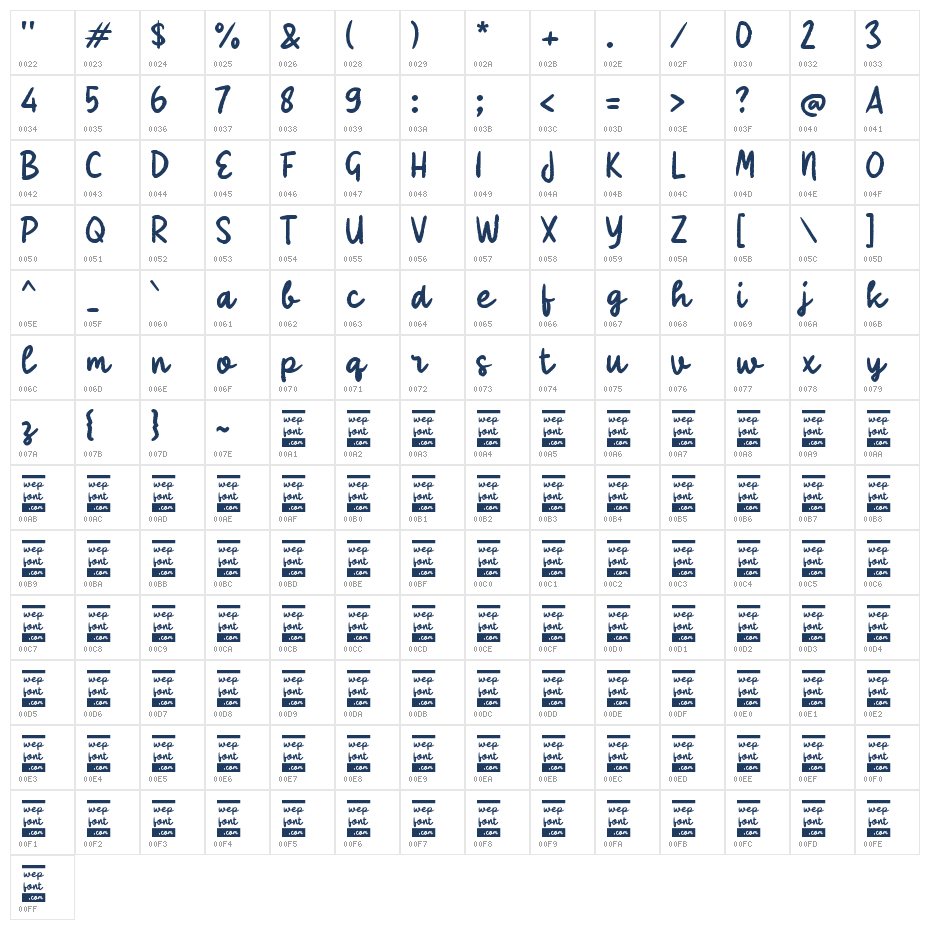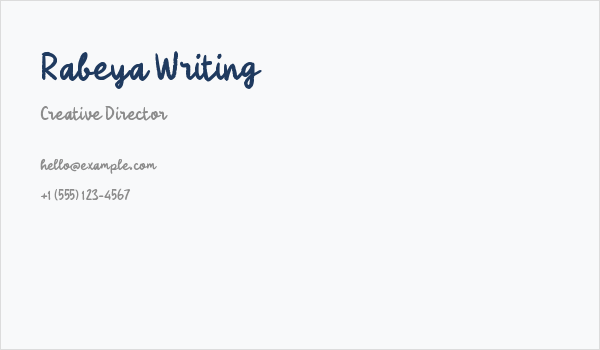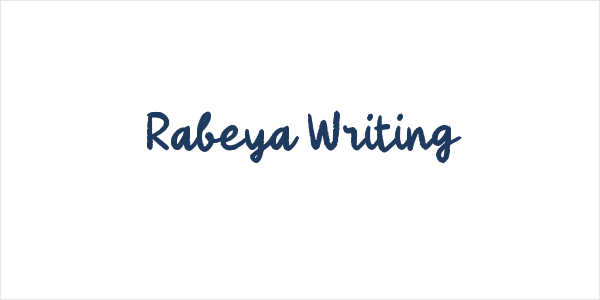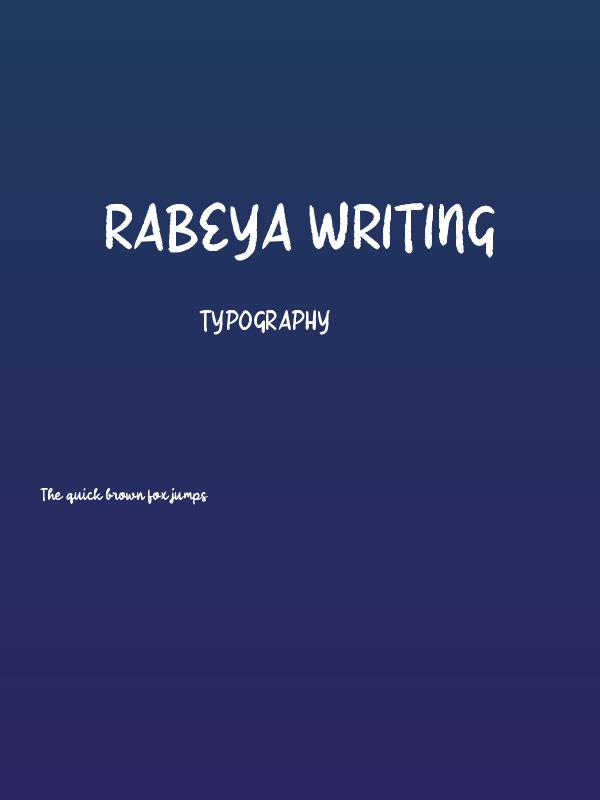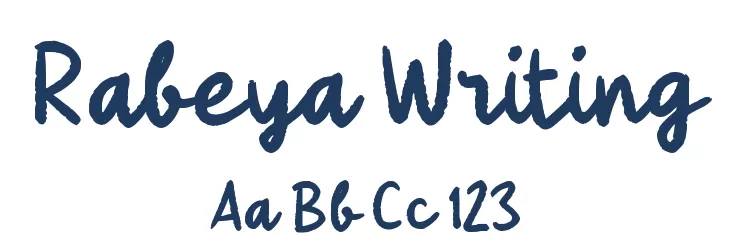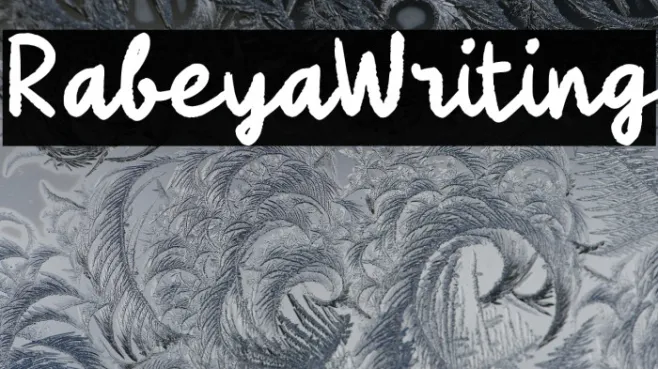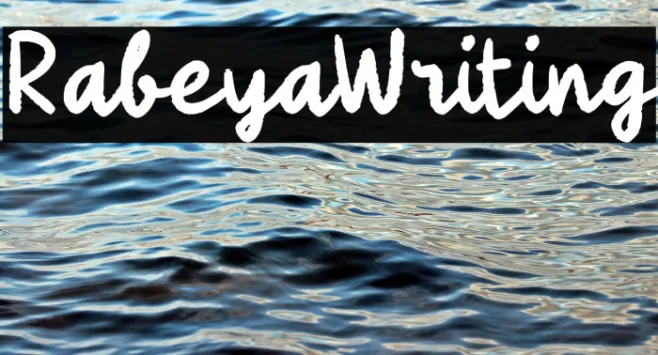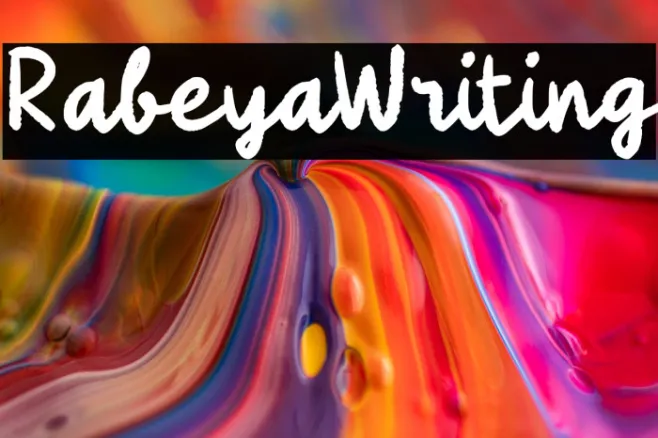
Rabeya Writing Font
Rabeya Writing Description
A casual, handwritten script font with a playful and informal style, featuring slightly irregular strokes and a friendly appearance.
| Overall Style | Casual, Friendly, Handwritten |
| Use Case | Headlines, Personal projects, Social media, Invitations |